Today’s issue is about typography (doy!), but in the context of developers, writers and their professions. You may read the title for this issue and wonder, “Why on earth does a developer or writer need to know anything about typography?”.
Well, both work to make designs come alive, through code and words respectively, and if you think about it, content, and thereby, typography, is a common thread connecting writers–designers–developers.
Most importantly, the more overlap there is in the languages we all speak, the more we’re able to empathise, collaborate and thrive!
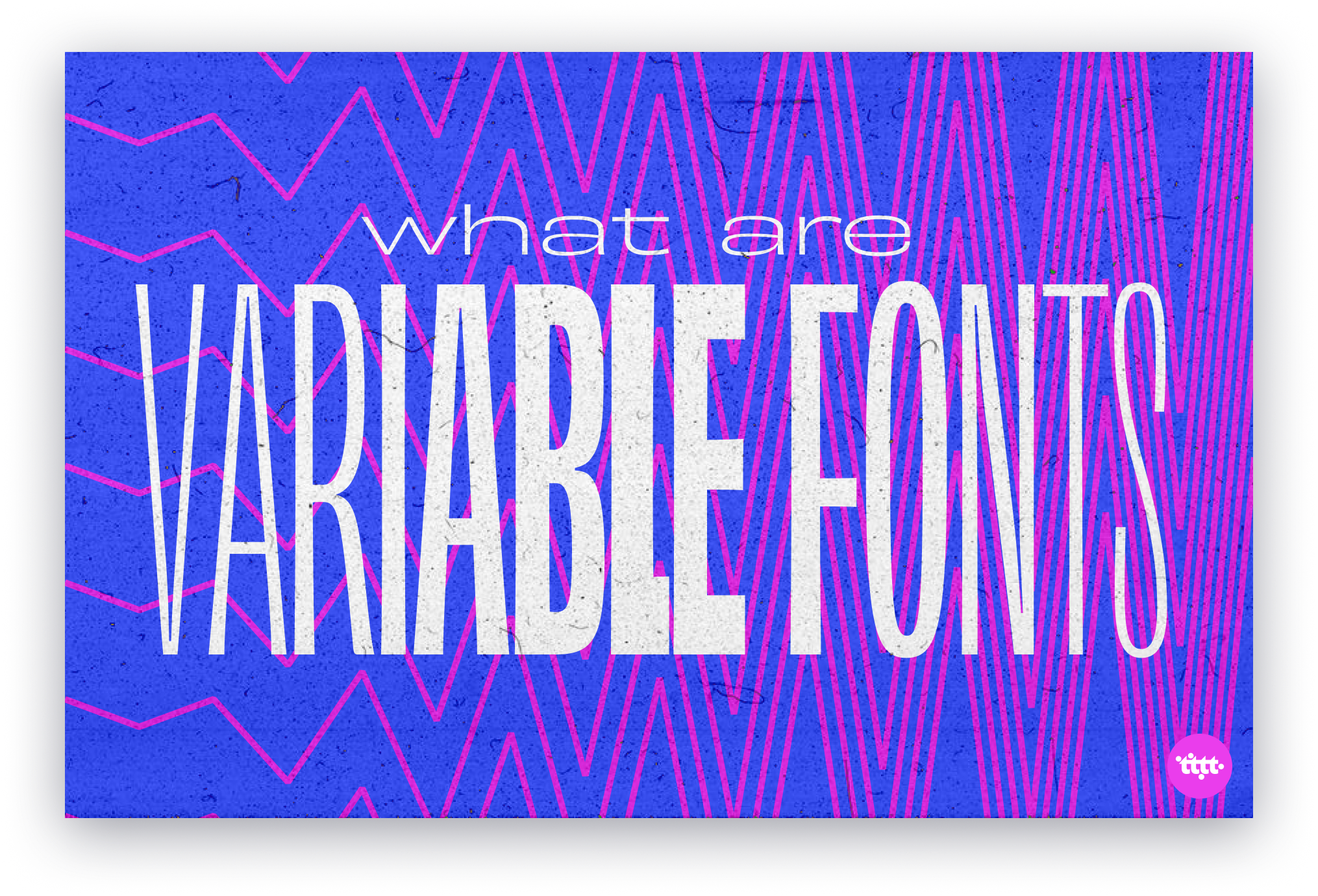
🌐 Introduction to Variable Fonts on the Web 🌐
I promised we’ll delve into variable fonts, what they are and how they're used, and who am I to not keep promises I make in the newsletter I write?
Variable Fonts are a more recent addition to the OpenType font format, changing the way we make and use fonts on desktop and web. Simply put, they offer the possibility to pack many different styles into a single font file. That means you can have bold, medium, light, italics and every weight and style in between, all in one file. It also gives you the ability to transition smoothly from a style to another, animating along one or more axes.
It would be naive of me to claim that we, as an industry, have fully tapped into the potential and possibilities of variable fonts, but their usefulness in web design and development is unparalleled! Read all about it here.
🗣 Why Talk when you can Try? 👩💻
ANYBODY. A typeface whose origins is rooted in the type designer’s love of Impact (think memes) combined with an affinity for Eurostile, and that's Anybody. Anybody is variable type mega family of 90 styles. In the foundry’s own words—
It has quirks to help separate it from meme text or a movie title. That said, it would work expertly as meme text or a movie title, we just don’t want you to feel limited by those options. Which is how it got its name, Anybody.
Anybody comes in static styles for desktop and web as well as a single variable font and has received several updates since its release in August of 2018. Anybody is available with an Open Font License, AKA free to use, forever. And is available to download on Github.
✍️ In Search of the Perfect Writing Font ✍️
We talk a lot about typography in the context of reading— concepts of legibility and readability, but what about type for writing? Let’s first get some definitions out of the way.
A monospaced font, also called a fixed-pitch, fixed-width, or non-proportional font, is a font whose letters and characters each occupy the same amount of horizontal space. Monospaced fonts’ origins are born from the limitations of mechanical typewriters. When the typist pressed a key, the carriage moved the paper the same distance each time, making every letter occupy the exact same horizontal space. Curiously, monospace fonts were also widely used in early computers because of their limited graphical capabilities. Every character had to be addressed and created within the confines a simple grid of tiles (pixels) on the screen. Monospace fonts are still used today for typesetting computer code because it’s easier to discern symbols and typing mistakes in long lines of source code. Meanwhile, a duospaced font is a fixed-width font where there are single and double-width characters.
PHEW.
Monospace fonts have historically been used by writers to communicate writing. What does that mean?
The typographic rawness of a monospace font tells the writer: “This is not about how it looks, but what it says. Say what you mean and worry about the style later.”
iA (Information Architects) writes about their explorations, trials and tribulations with monospace fonts and their pursuit of the perfect writing font.